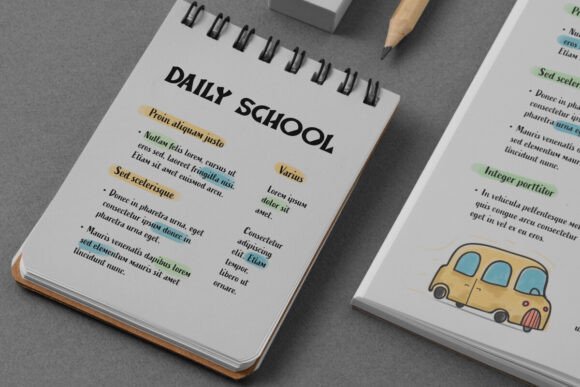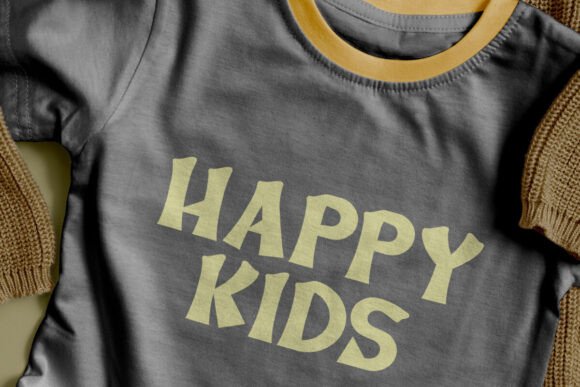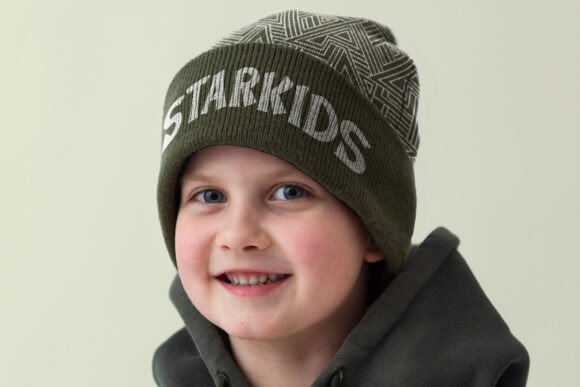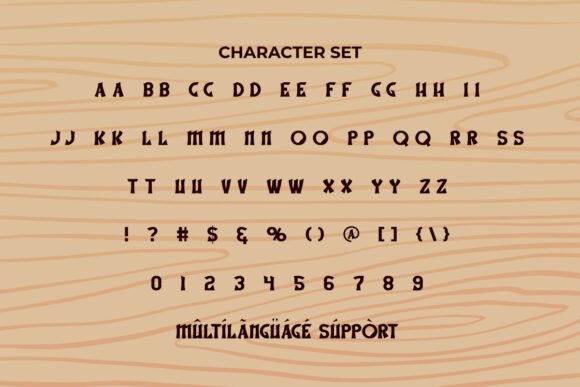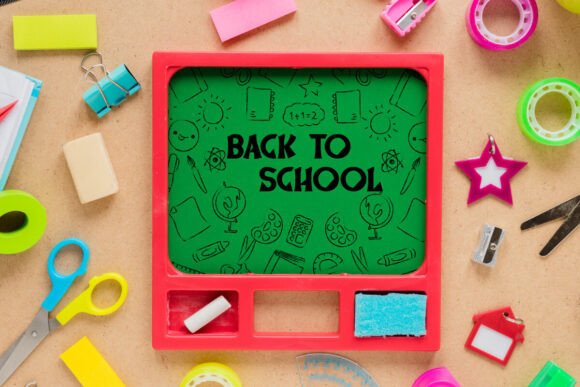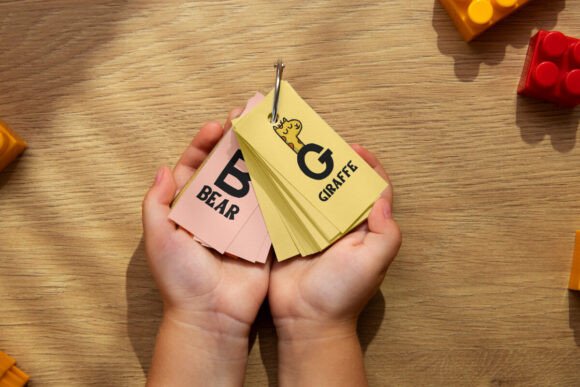
Introduction to Old Cartoon Font Font
Fonts play a crucial role in design, and the Old Cartoon Font font is a typeface that brings both character and versatility to any project. Whether you’re working on a branding project, a website, or a print design, the Old Cartoon Font font offers a unique style that can elevate your work.
| 📌 Font Name | Old Cartoon Font |
| 👤 Author | NoahType |
Old Cartoon Font is a cute cartoon display font that has a playful and unique shape that gives attractive looks.
This font will suit many designs, such as brand image, business card, cartoon, catalog, comic, cover, custom design, invitation, label, menu, poster, quote, stationery, web, and more .
Key Features of Old Cartoon Font Font
Why Choose Old Cartoon Font Font?
The Old Cartoon Font font is more than just a typeface – it’s a design tool that helps you communicate your message with style and clarity. Its unique character set and versatile design make it suitable for a wide range of applications, from elegant invitations to bold headlines.
With its carefully crafted letterforms and balanced proportions, the Old Cartoon Font font ensures readability and visual appeal across all mediums.
What makes Old Cartoon Font font special?
The Old Cartoon Font font stands out with its unique design, exceptional readability, and versatility across various design applications.